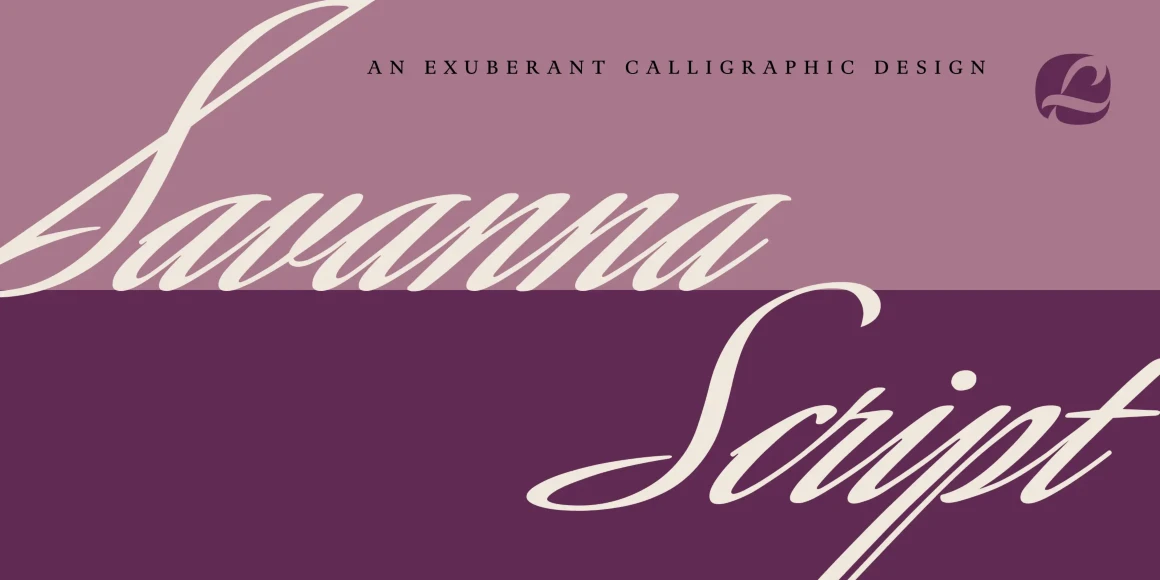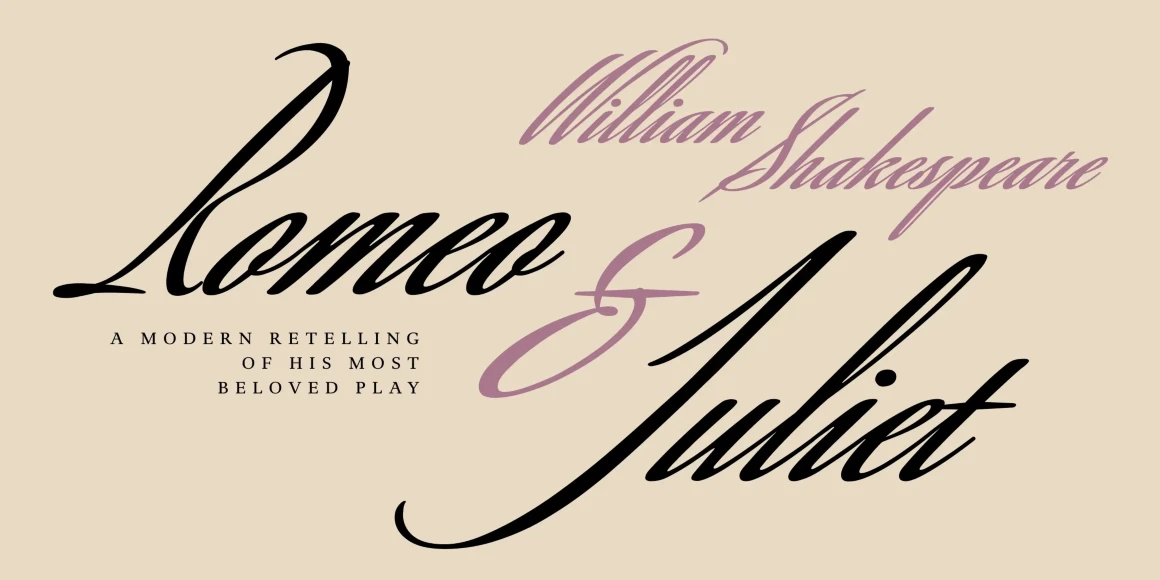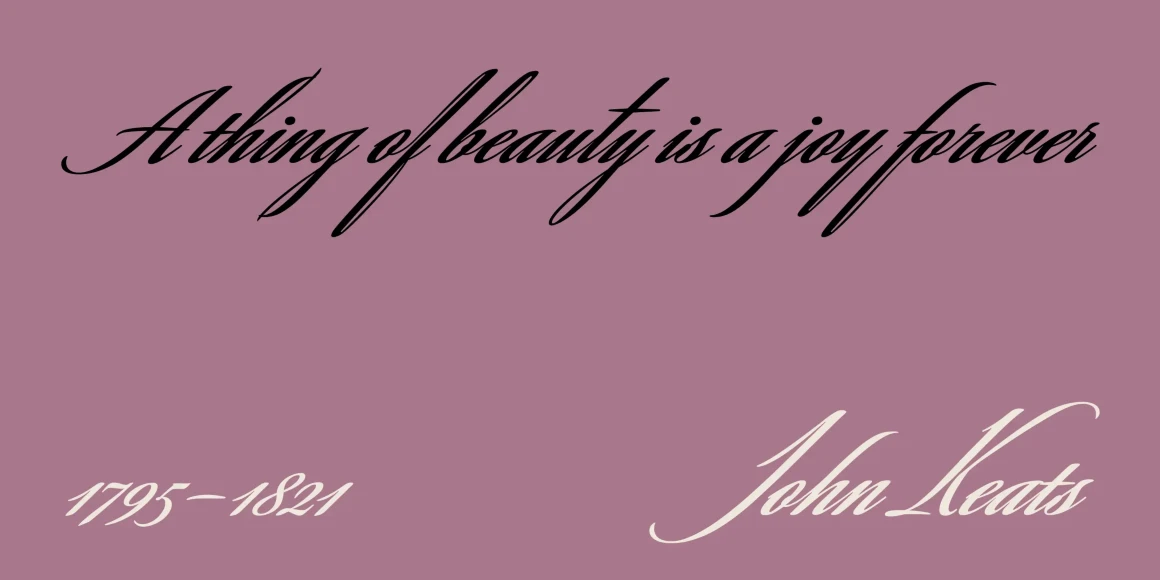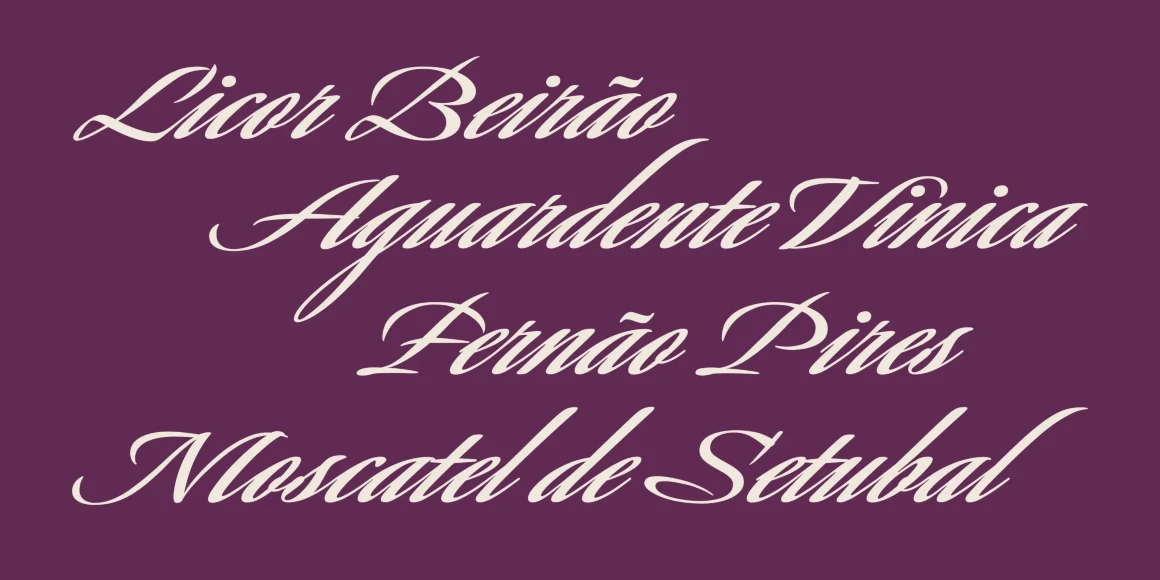
Savanna Script
From Lipton Letter Design
Richard Lipton is a master of the calligraphic script, transforming the elegance of pen-on-paper into beautiful, functional fonts. For Savanna Script, he channeled Friedrich Neugebauer and Martin Wilke, modern calligraphers whose square-edged pen updated 16th-century styles. Tight and taut, Savanna dances with a rapid yet effortless energy. Three weights and multiple cap styles offer flexibility rare in formal scripts.
Designed by Richard Lipton